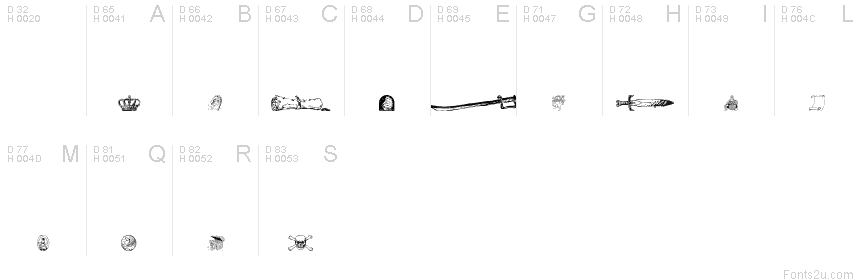
Fantasy clipart 2
Fantasy Clipart 2 font by Gemfonts98 is a free fantasy dingbat typeface that turns your keyboard into a tiny medieval illustration kit. The icons feel like they were inked on parchment-crisp silhouettes of mythical emblems, weapons, and arcane symbols that instantly suggest stories and quests. Strokes are bold and clean, so even the more intricate marks stay readable at smaller sizes.
Using Fantasy Clipart 2, you can quickly dress up RPG rulebooks, campaign maps, character sheets, fantasy book covers, event invitations, game menus, or printable stickers without hunting for separate artwork. This free font shines when its icons are used large as spot graphics; pair it with a simple serif or sans for text so the pictograms stay the star.